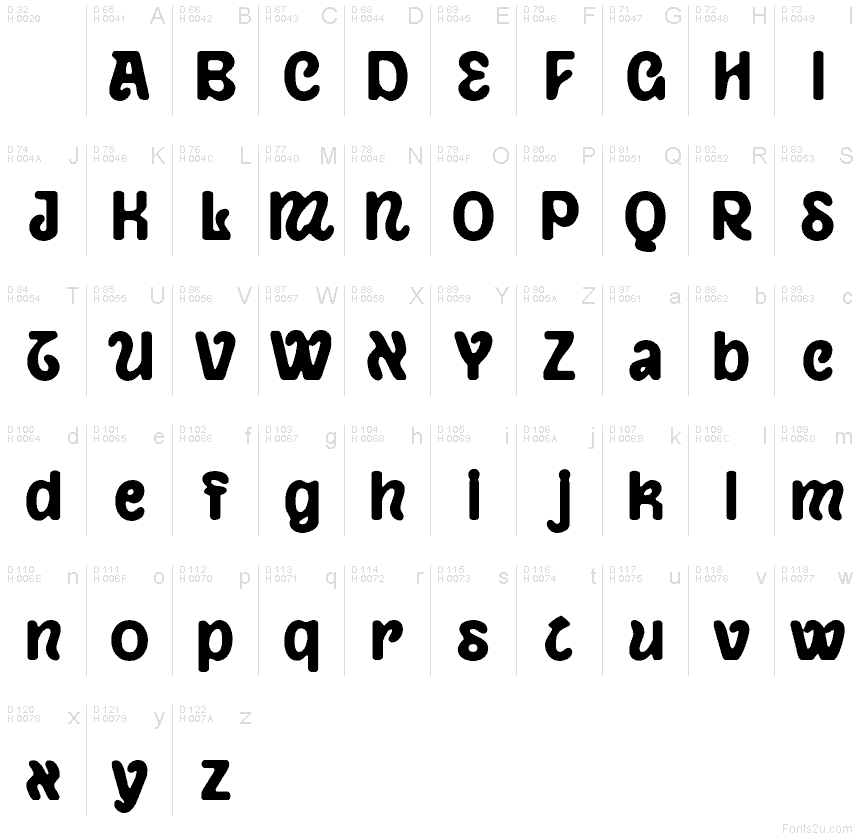
CSRamiroDrawn-Regular Demo
CS Ramiro Drawn font by Craft Supply Co. is a free vintage font. Built within the CS Ramiro family, it leans into a soft, hand-drawn heft—swollen strokes, pillowy curves, and teardrop terminals that feel inky and human. The letters nestle tightly without cramping, giving headlines a playful push while staying readable. It’s retro without dust: more warm sign‑painter than museum relic.
Using CS Ramiro Drawn, you’ll get big, friendly impact for posters, coffee packaging, badges, event titles, T‑shirts, and menu boards. The chunky rhythm makes short words thump; keep it large and give lines room to breathe. Pair this free font with a clean grotesque or geometric sans for body copy to sharpen the contrast and let the drawn texture shine.